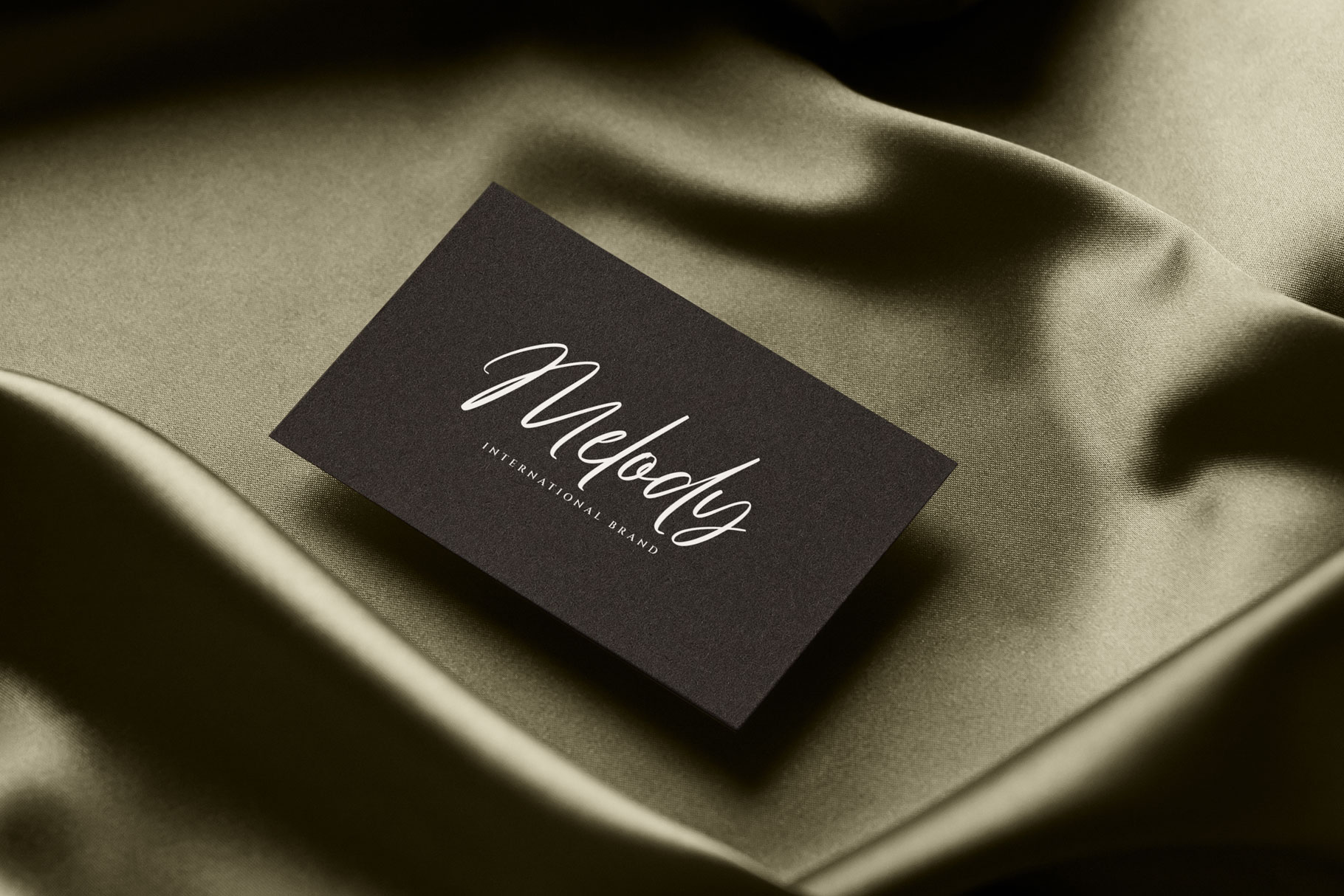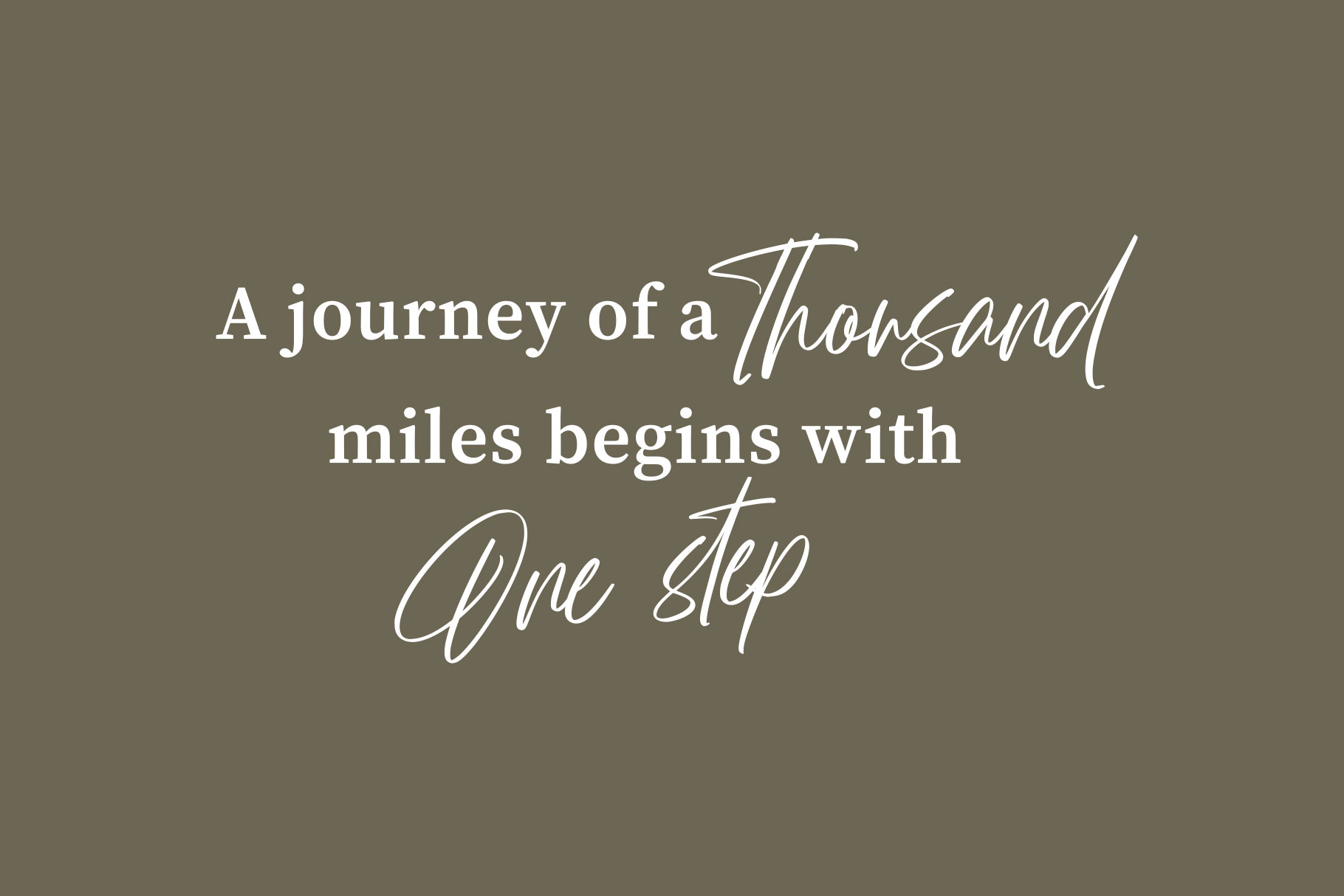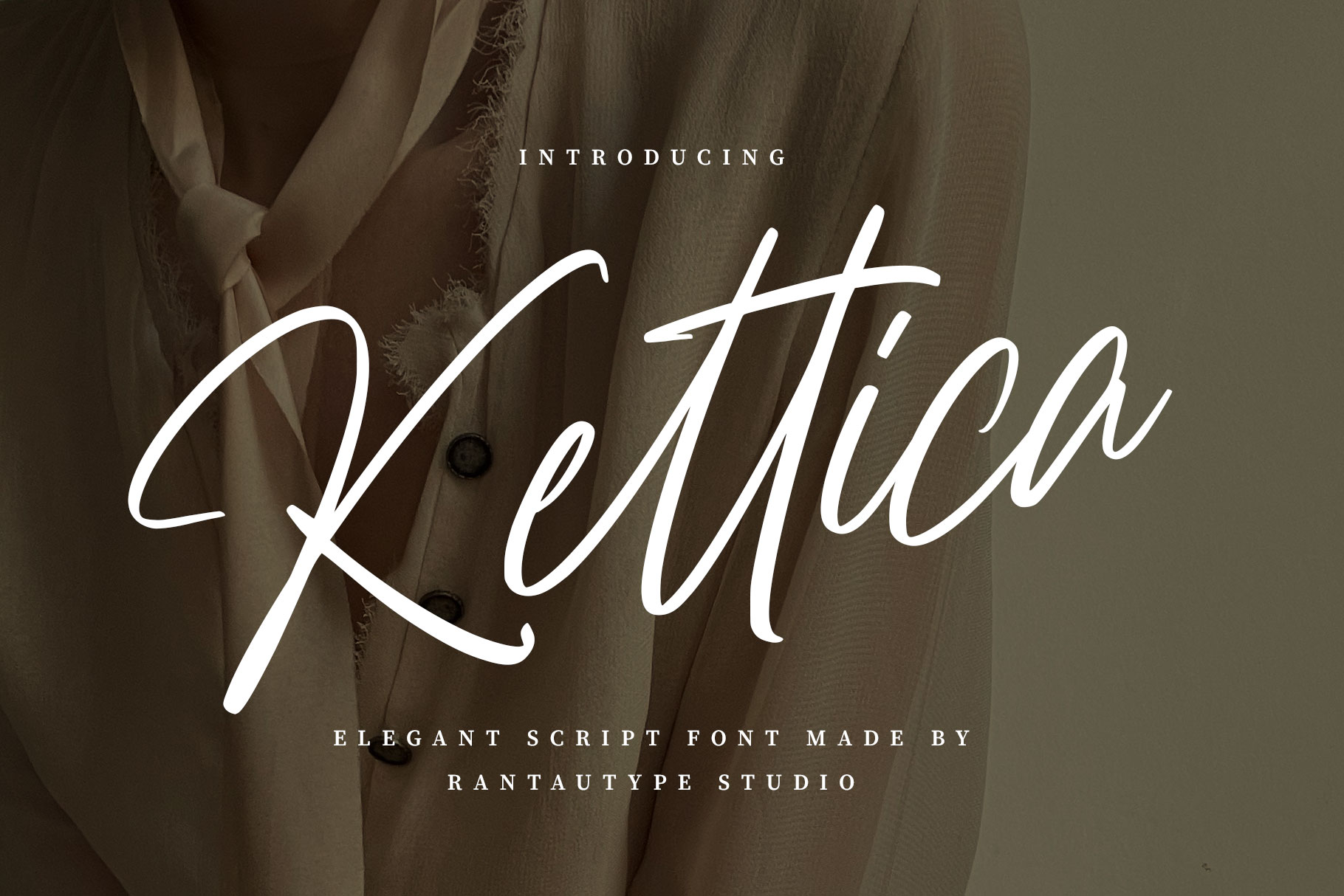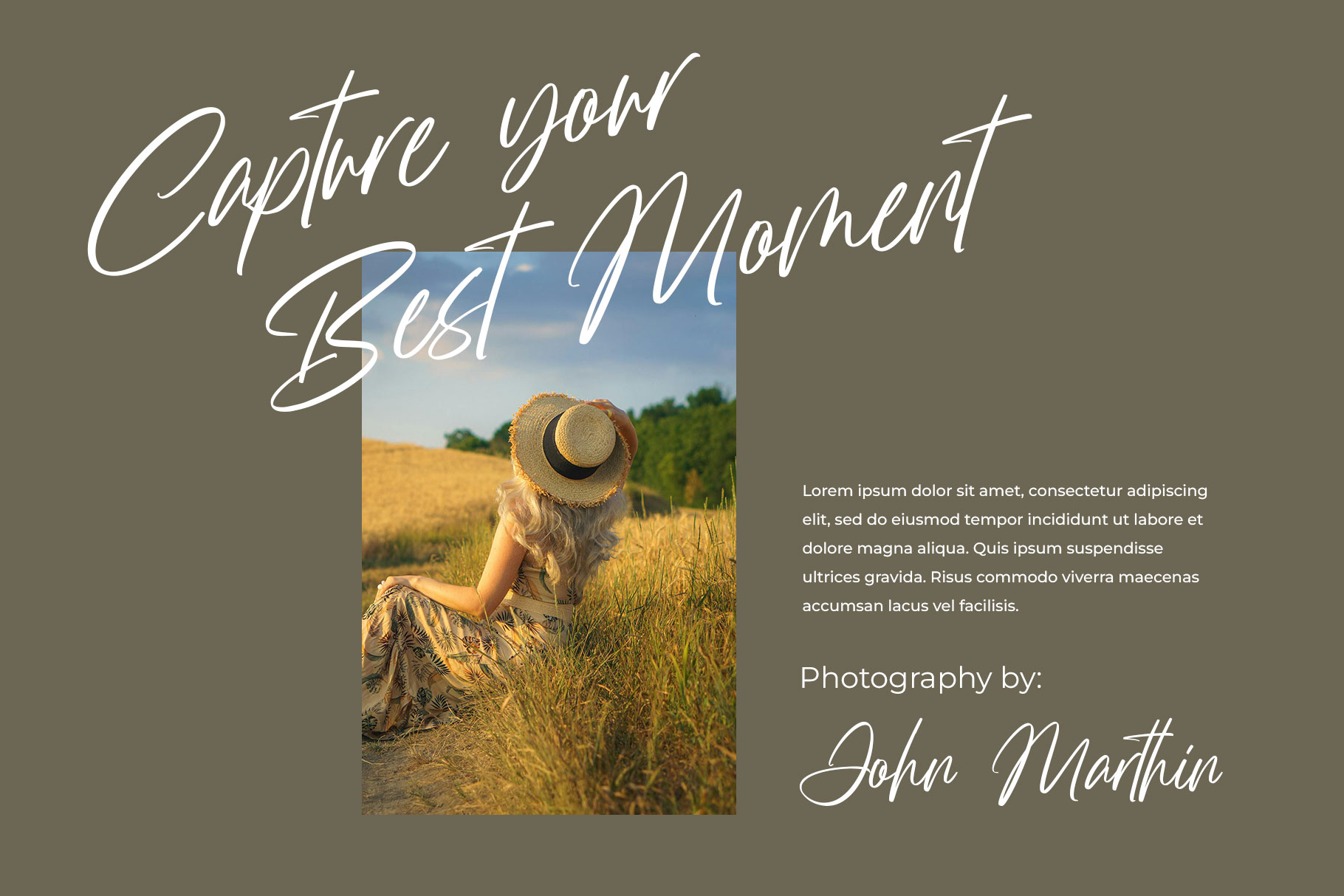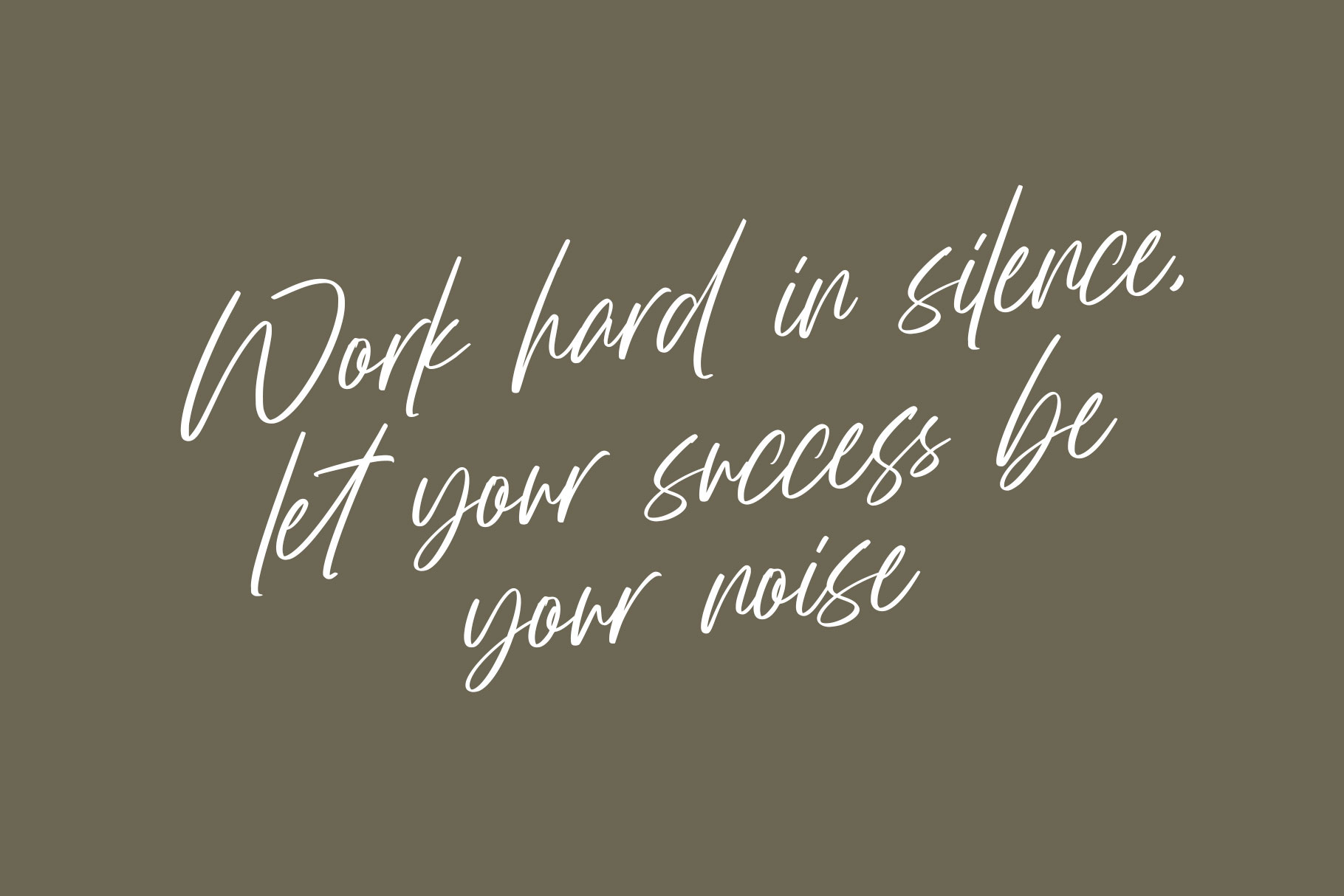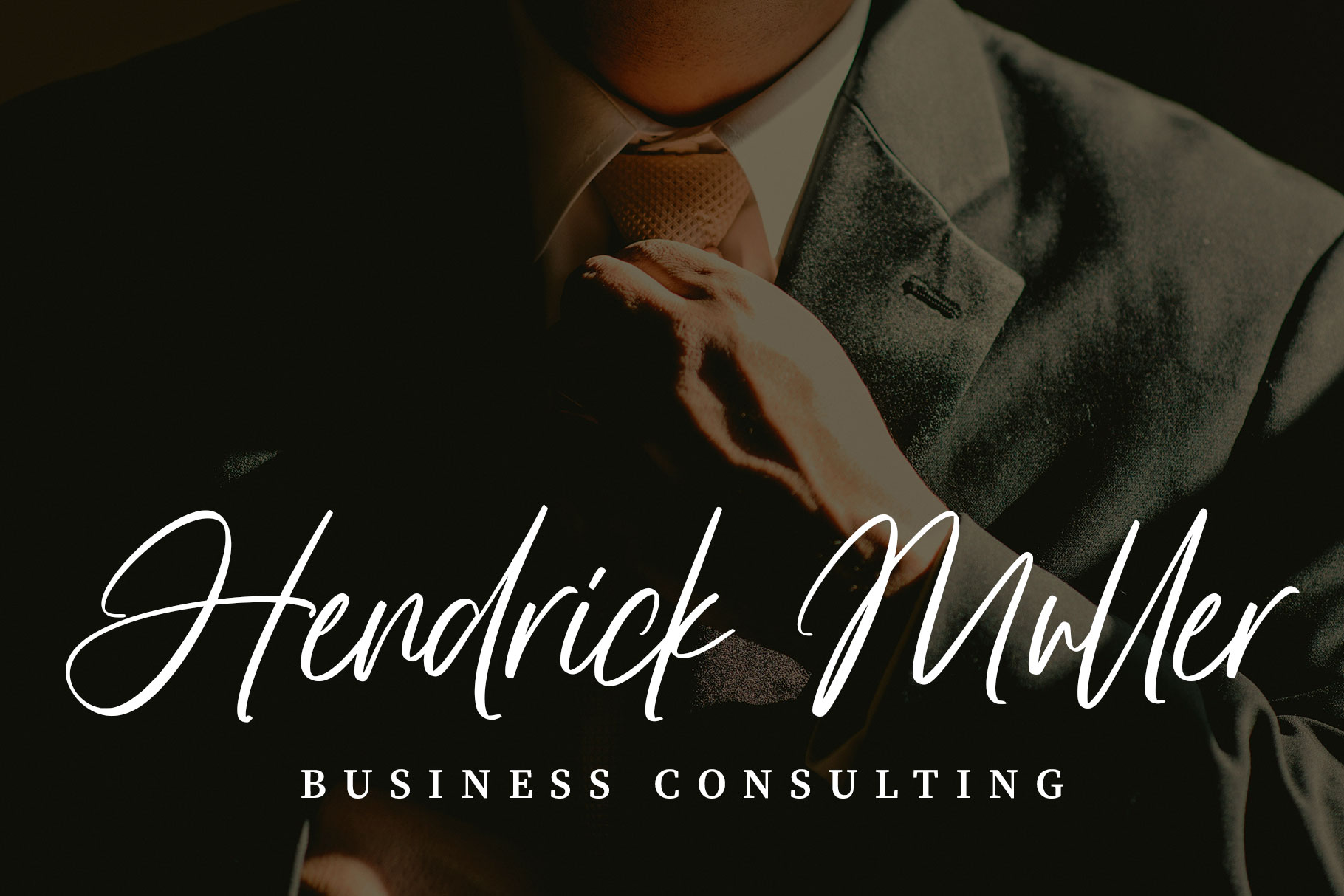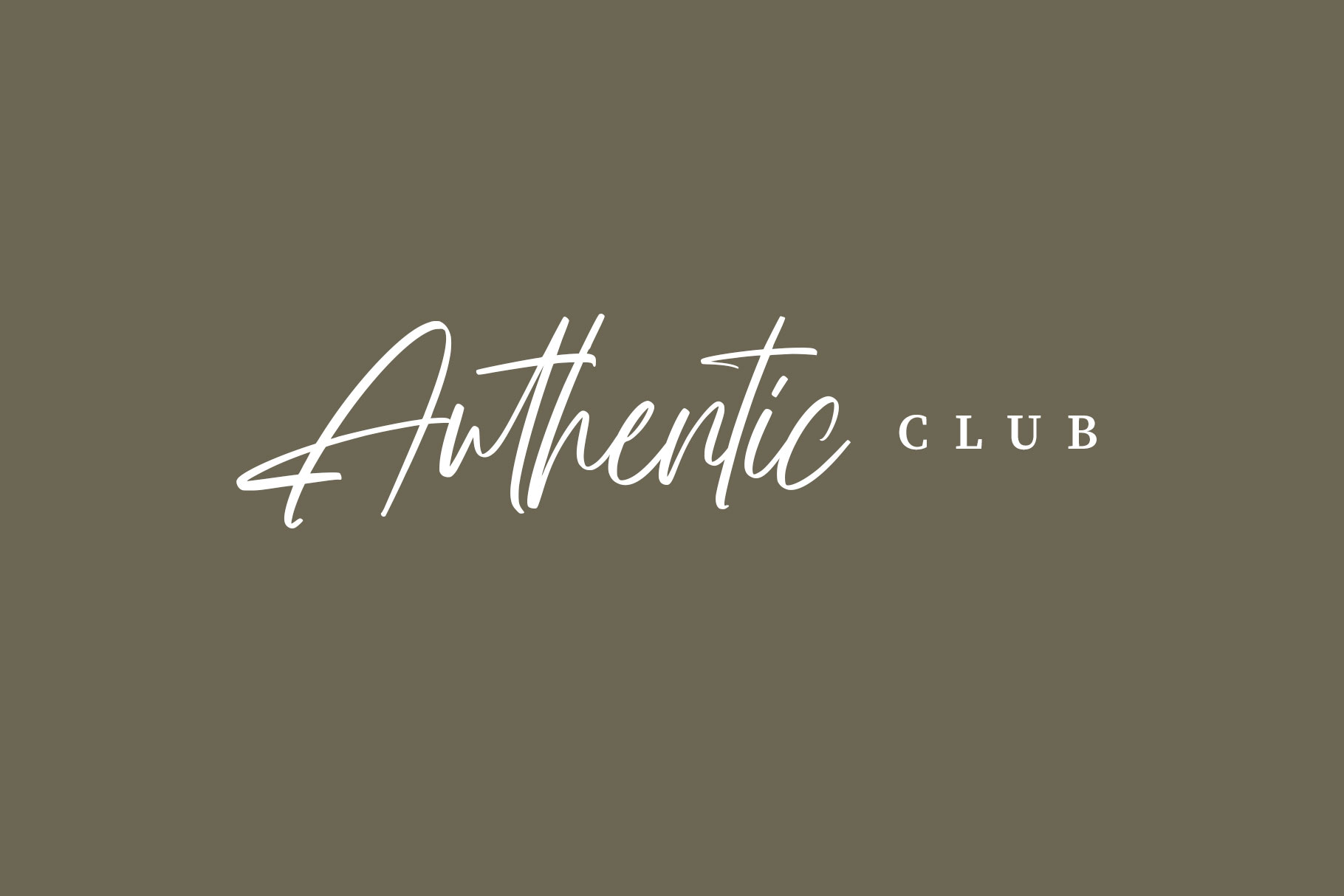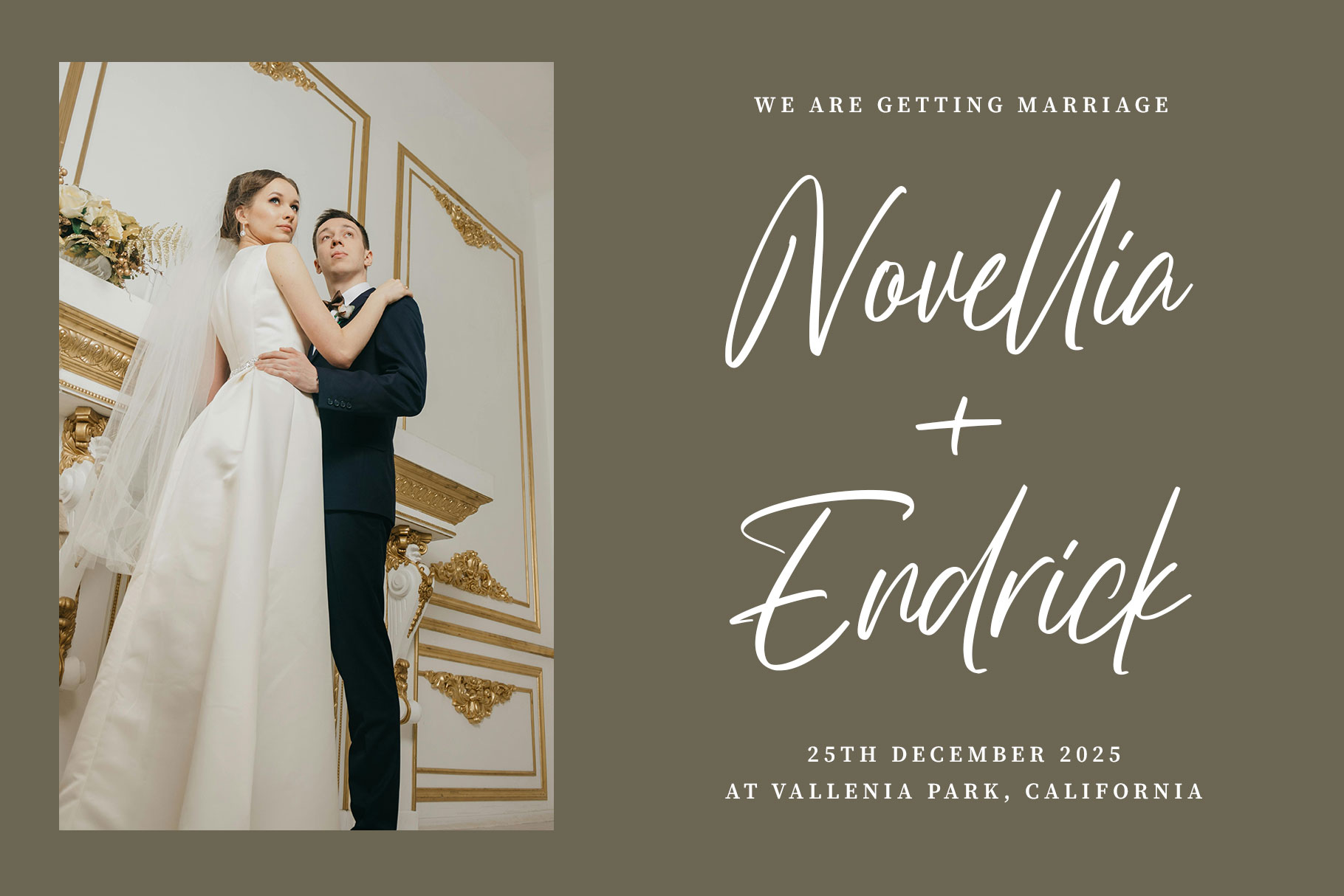
Kettica Elegant Script Font
Kettica is Elegant Script font made by Rantautype Studio. Kettica is a perfectly choice for any creative endeavor, creating, modern, lifestyle design such as logotype, title, cover, branding, invitations, wedding designs, display and magazine, social media posts, advertisements, printed quotes, product packaging, corporate brand, product designs, labels, photography, watermarks, special events and any other project with elegant touch.